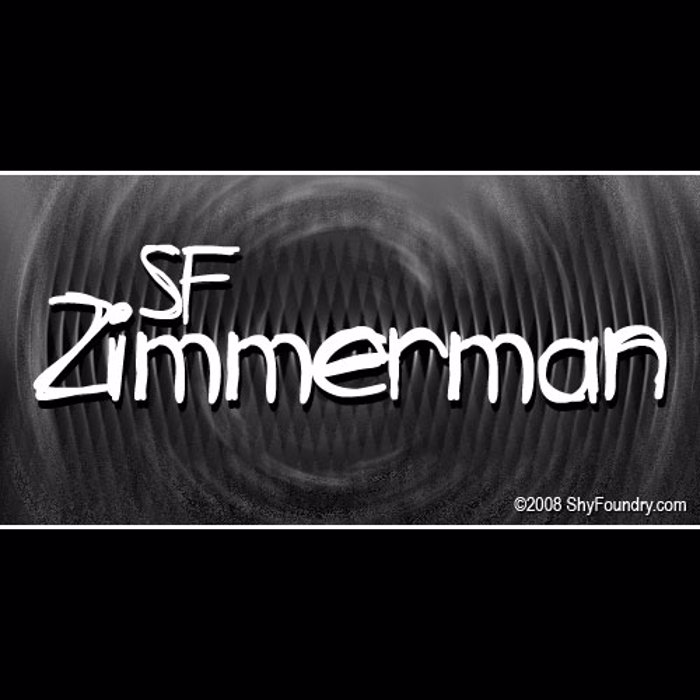
SF Zimmerman Font
A grungy, hand written font named after the one and only Robert Zimmerman (Bob Dylan for those of you that don't know his real name)